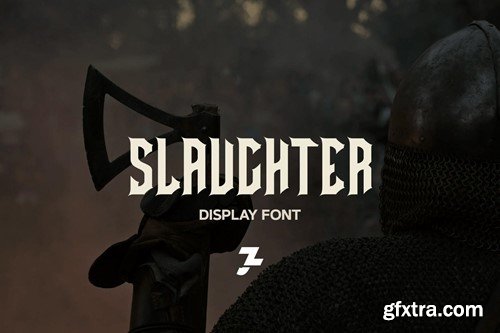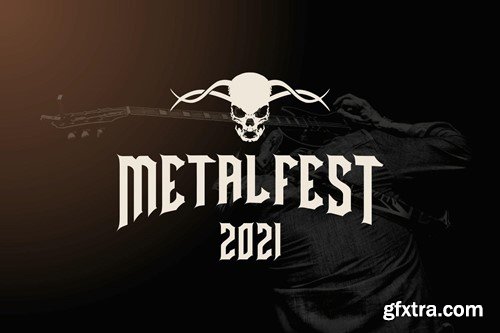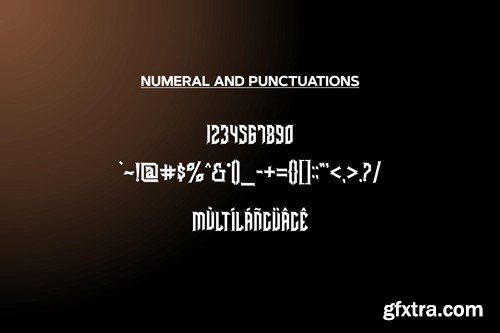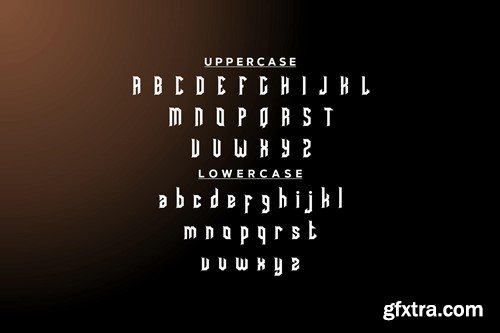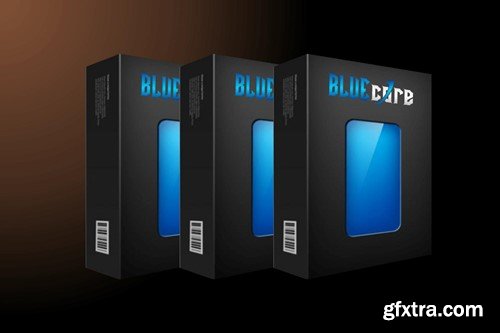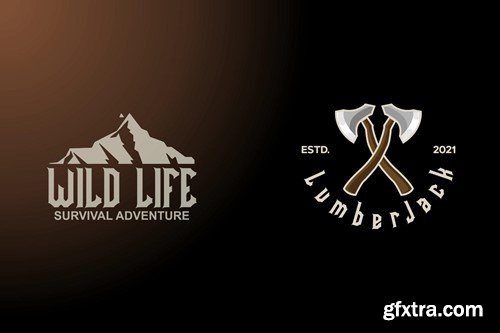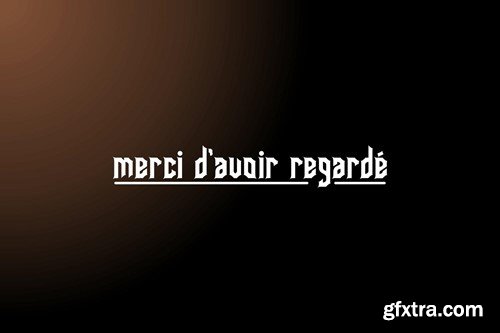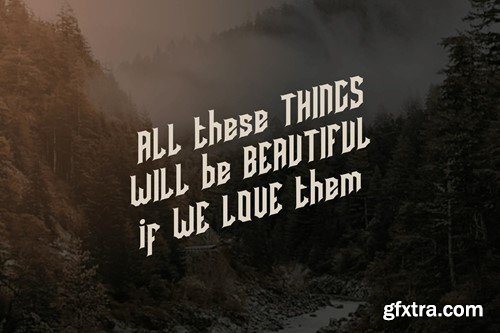
Slaughter- Display Font
Slaughter is a display font that includes uppercase letters, numbers, multilingual and punctuation. you can perfectly customize it for your own designs, suggestions for creating logos, emblems, posters. Slaughter is very stylish, perfect for strong moods, future technology and innovative products! Your download will include 1 font file (OTF / TTF / WOFF) with: Uppercase Lowercase Numbers Punctuation multi language support